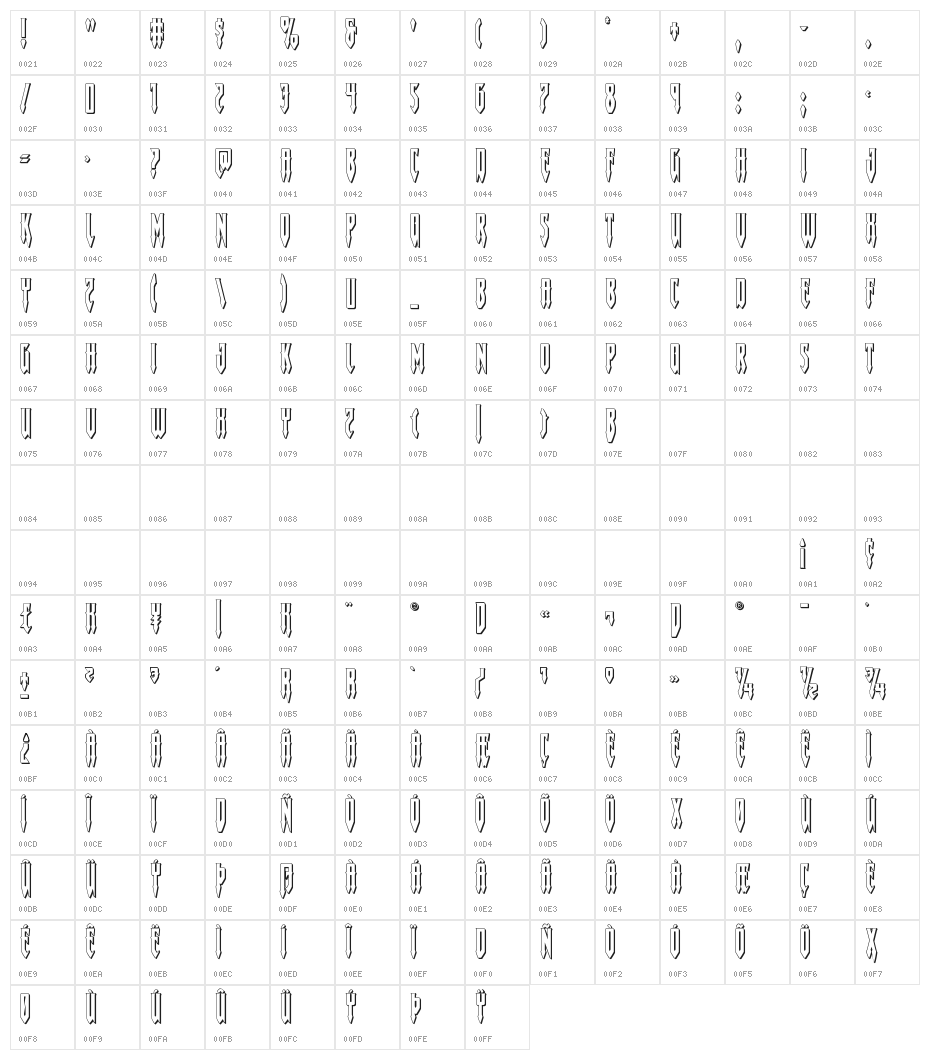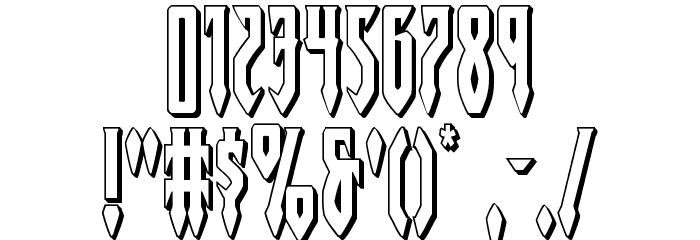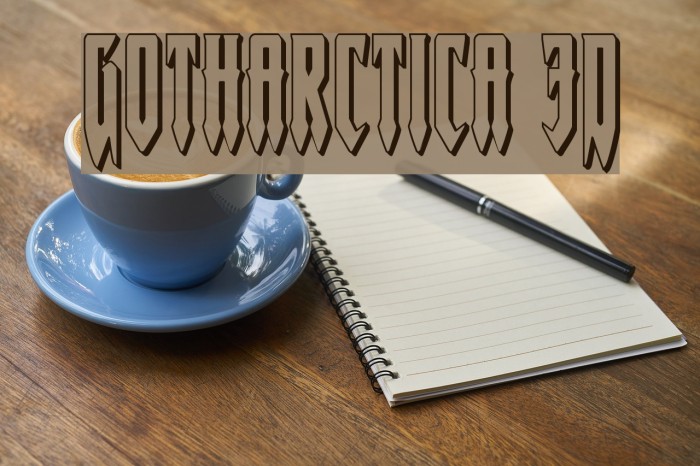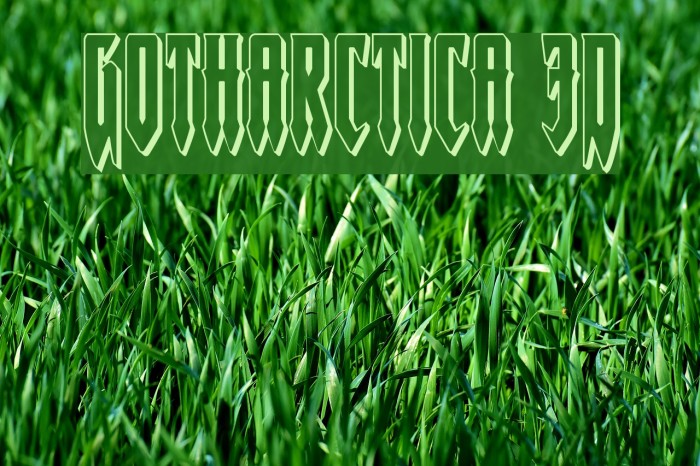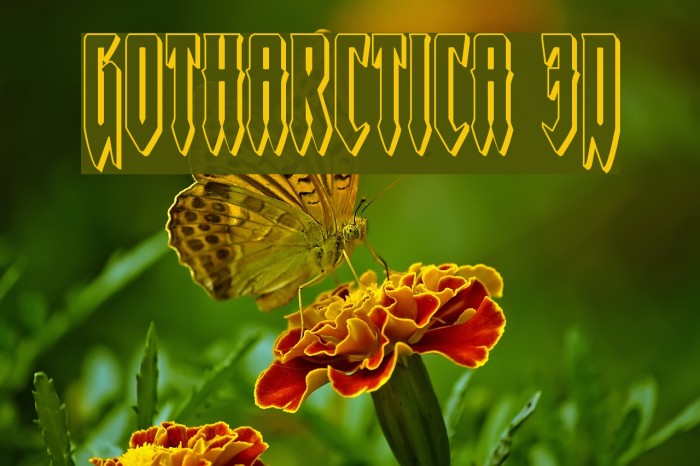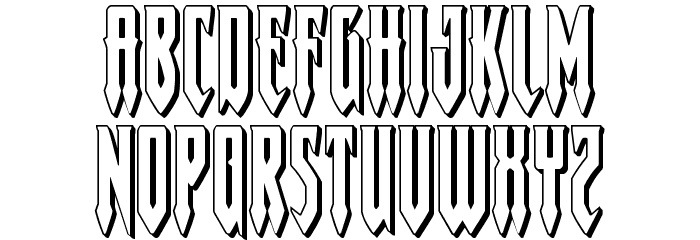
Gotharctica 3D Font
Gotharctica 3D Description
This font features a bold and striking 3D effect with sharp, angular edges and a gothic-inspired style. The uppercase letters are tall and narrow, creating a dramatic and imposing appearance. The numbers and special characters maintain this bold aesthetic, enhancing the font's overall impact. The design is reminiscent of medieval or fantasy themes, making it ideal for projects that require a strong visual presence. The font's unique 3D shadowing adds depth and dimension, making it stand out in any design.
| Overall Style | Gothic, Decorative |
| Proposed Projects | Ideal for fantasy-themed posters, video game titles, book covers, and branding that requires a dramatic and bold appearance. |